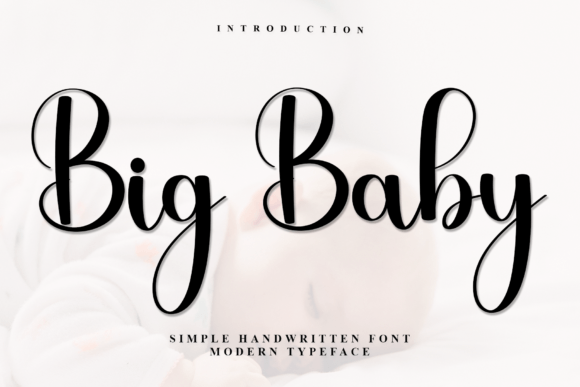
Introducing Big Baby Font: The Perfect Holiday Typeface
The holiday season is upon us, and what better way to get into the spirit than with a festive and happy typeface? Look no further than Big Baby Font, a decorative font that’s sure to add a touch of charm to your designs. In this article, we’ll dive into the world of Big Baby Font, exploring its unique features, uses, and benefits for designers and crafters alike.
A Festive and Happy Typeface
Big Baby Font is a one-of-a-kind typeface that embodies the joy and cheer of the holiday season. Its decorative elements and unique flair make it the perfect addition to any holiday-themed project. Whether you’re designing greeting cards, gift labels, or festive posters, Big Baby Font is sure to bring a smile to your face and a touch of magic to your words.
So, what can you use Big Baby Font for? The possibilities are endless! Here are a few ideas to get you started:
- Greeting cards: Create personalized and festive greeting cards for your loved ones.
- Gift labels: Add a touch of charm to your gifts with custom labels featuring Big Baby Font.
- Holiday-themed projects: Use Big Baby Font to create festive posters, flyers, and social media graphics.
- Crafting projects: Add a personal touch to your crafting projects, such as scrapbooking, journaling, and paper crafting.
- Customization: With a wide range of glyphs and ligatures, you can customize your designs to your heart’s content.
- Uniqueness: Big Baby Font is a one-of-a-kind typeface that will set your designs apart from the crowd.
Here are a few tips and tricks to help you get the most out of Big Baby Font:
- Experiment with different colors: Big Baby Font looks great in a range of colors, from bright and bold to soft and pastel.
- Mix and match: Combine Big Baby Font with other fonts and design elements to create unique and eye-catching designs.
- Play with size: Big Baby Font looks great in a range of sizes, from large and bold to small and delicate.